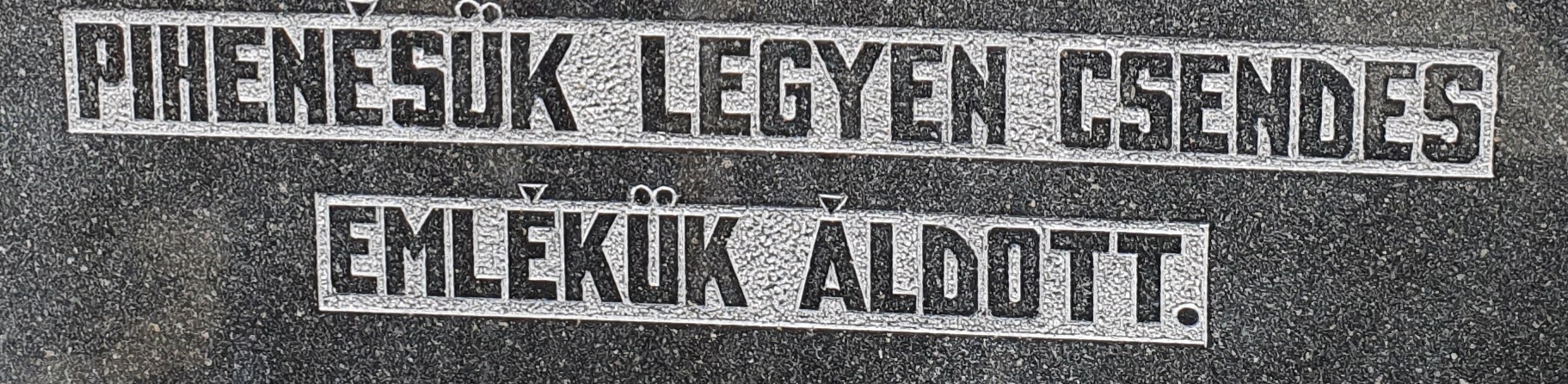
What the name of this font
Somebody know the name of this font type?I also know a hand worked job,but also is there a font which is the same.Thanks in advance guys..
101% definite that it's a hand cut typeface. With that said, you could pretty much do what you want for a date cutting, so long as it's close to what's already there.
There are significant differences between the same characters, and that's to be expected. Your only challenge will be to hand work (chisel) the panels to resemble the existing.
With that said, there seems to be a lot more hand tooled memorials in Europe than the US, with each reflecting the individual talents of each artisan, and I like that. Everything here in the US typically looks identical. I'm personally rebelling against those "cookie cutter" shops by offering natural boulder memorials...and no two ever look the same.
No name for font?I can cut and do it with hand..